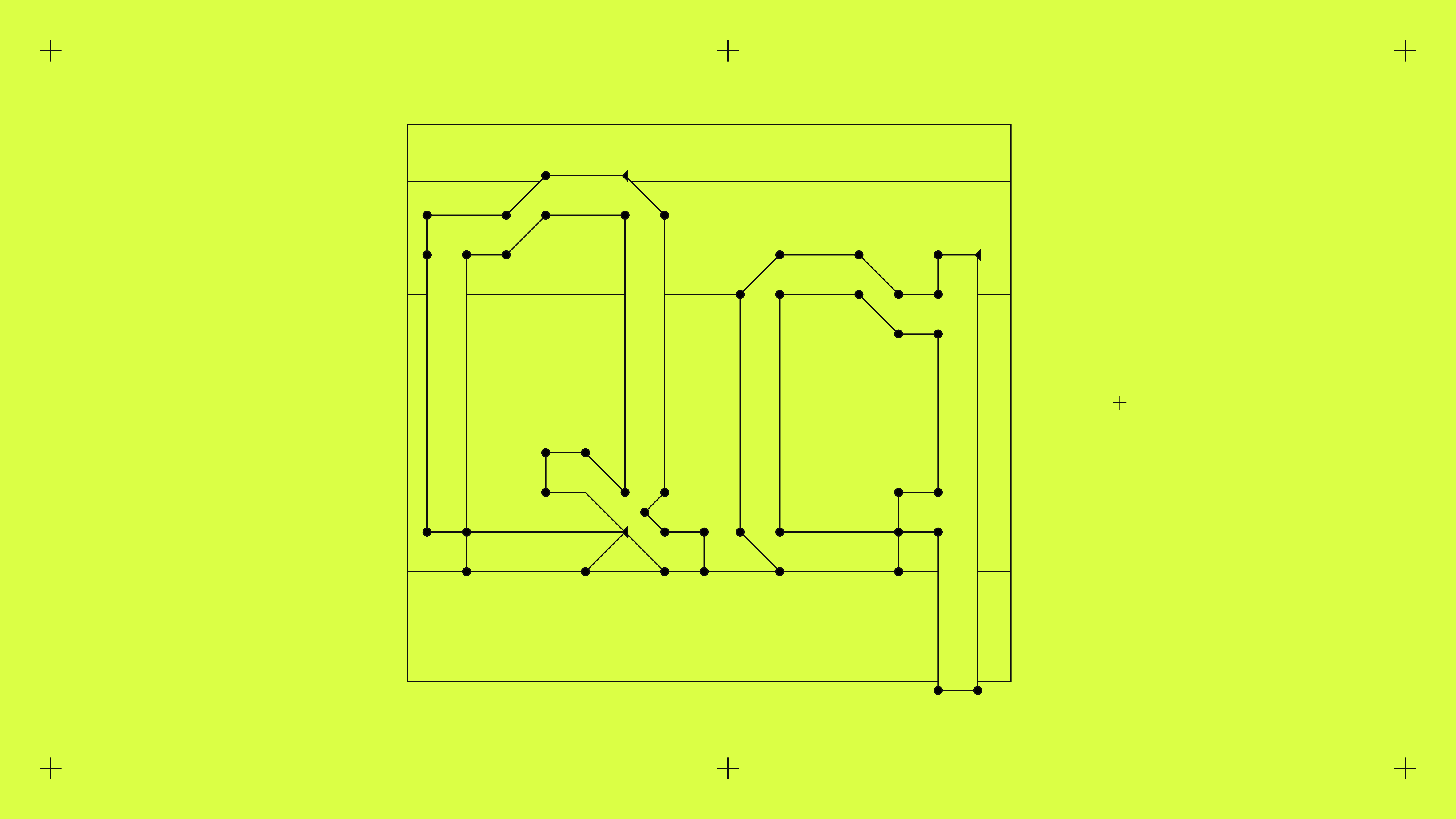
F37 Panda Pop
Packed with 90’s gaming nostalgia, Jamie Quantrill’s F37 Panda Pop is an 8-bit love song to the games of his childhood.
To emulate the style of typography, F37 Panda Pop was limited to a restrictive square grid. Similar to the programmers of the time, this constricted the type and lead to innovative solutions. The stepped diagonals, lack of optical corrections and rigid letter forms are typographic oddities now, but are what place F37 Panda Pop in the crude polygon era. F37 Panda Pop may be an artefact of a time, but as the wheel of fashion brings Capri pants and bucket hats back into trend, so to will the nostalgia for video game type.
F37® × Jamie Quantrill
F37 Panda Pop
The Designer
F37 Panda Pop
Interview
Tell us about the inspiration behind your collaboration with F37®×. If it was an unused concept, what was the potential use case for it.
A modular typeface inspired by the 8-bit typography used in the video games of my childhood, such as Pokémon and Super Mario.
When starting the process of creating your font, what typographic conventions did you look to break or experiment with? Or were there conventions of functionality you championed?
I wanted to create a typeface that was visually engaging whilst being built on a restrictive square grid. Inspired by the Wim Crouwel 'gridnik' fonts of the past.
Now that your typeface has launched, what would be your dream project to use your F37® typeface on?
Something space/game/sci-fi or tech related. I would leave to see it absolutely massive on the side of something.
What have you learnt through developing and creating your own typeface(s) with our F37® type designers?
The craft and rigour that goes into creating a typeface, also that it requires scrutinous attention to detail before final signoff
How would you describe your typeface in three words?
Formulaic, Goofy, Fun.